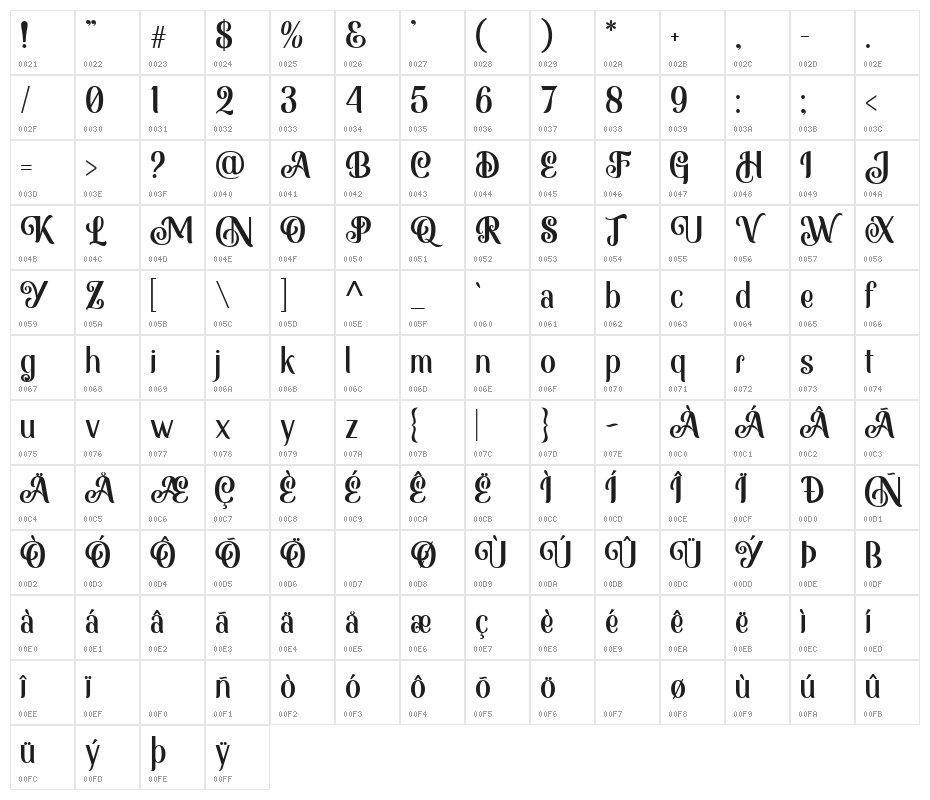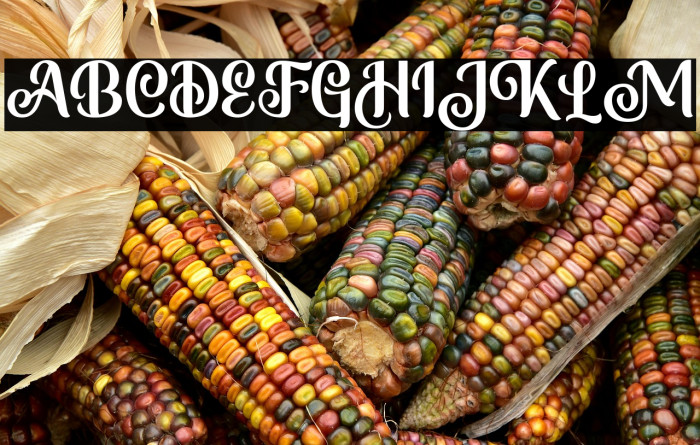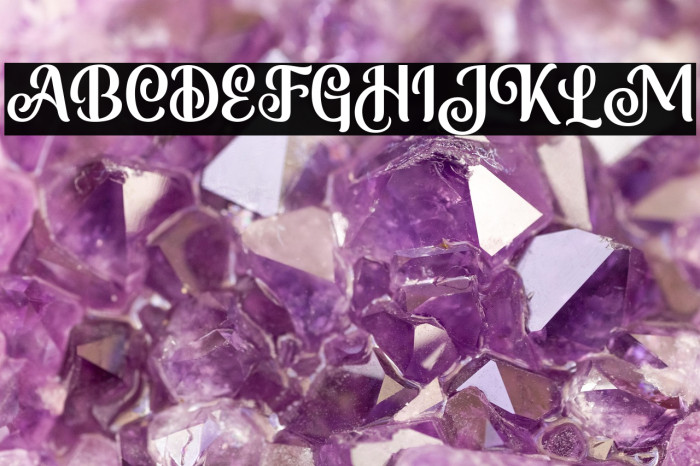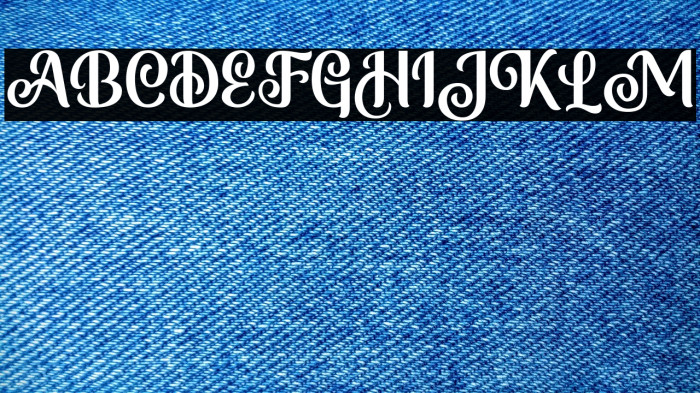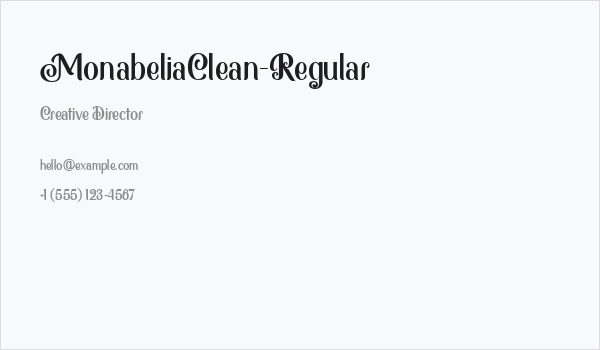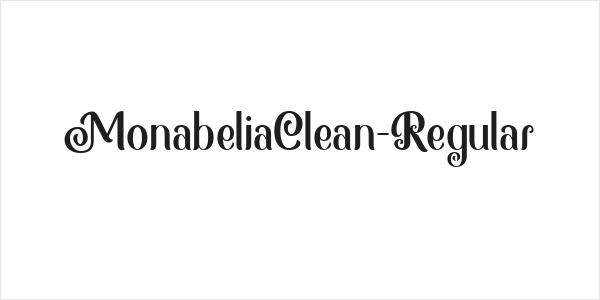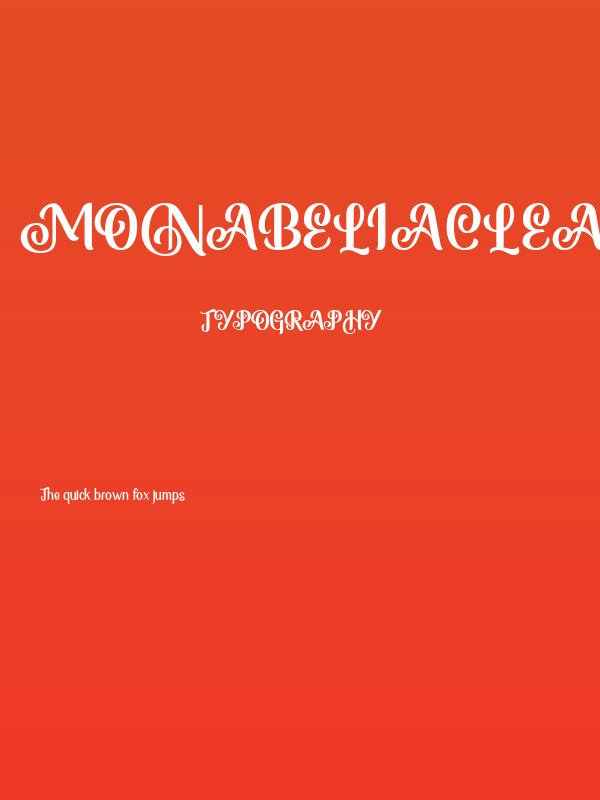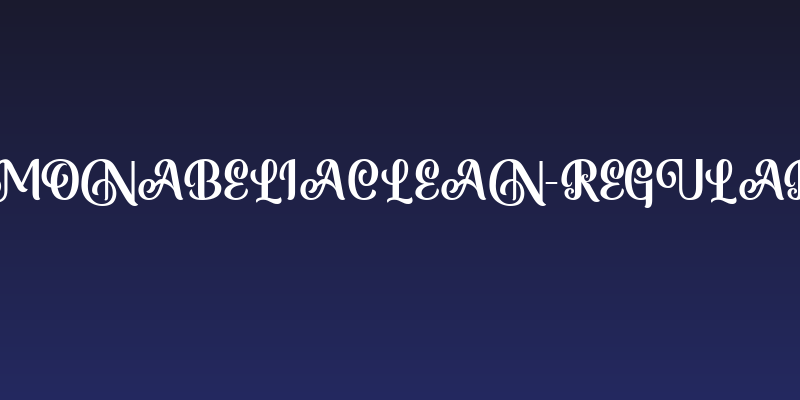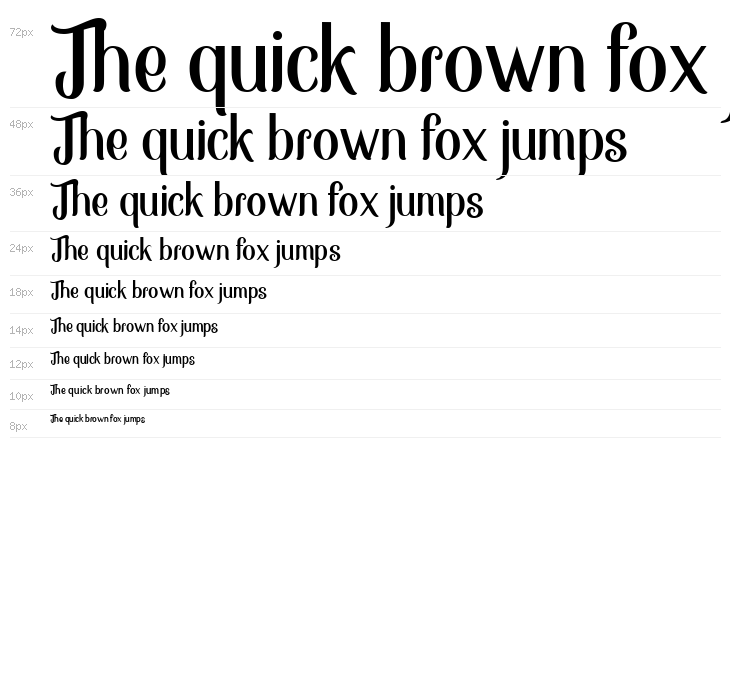
MonabeliaClean-Regular Font
MonabeliaClean-Regular Description
This font features a decorative and elegant style with a unique blend of classic and modern elements. The uppercase letters are characterized by intricate swirls and loops, giving them a sophisticated and ornamental appearance. The lowercase letters maintain a more straightforward yet stylish design, ensuring readability while retaining a touch of flair. The numerals are bold and consistent with the overall aesthetic, providing a cohesive look. Special characters are thoughtfully designed to complement the font's artistic nature, making it suitable for creative and expressive projects.